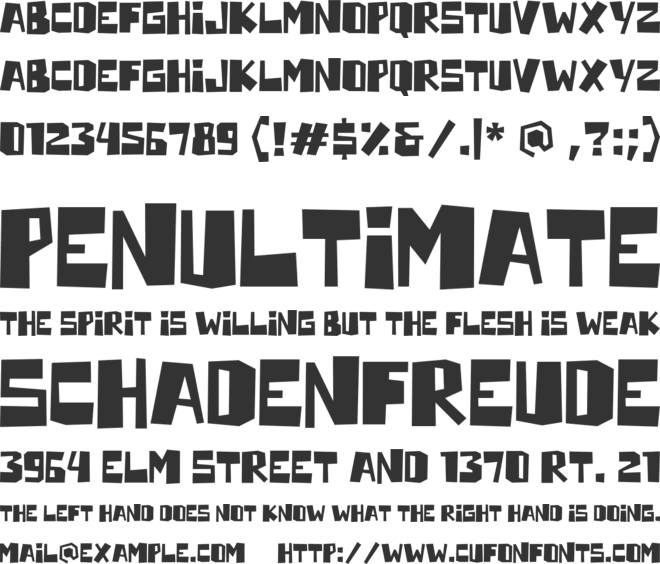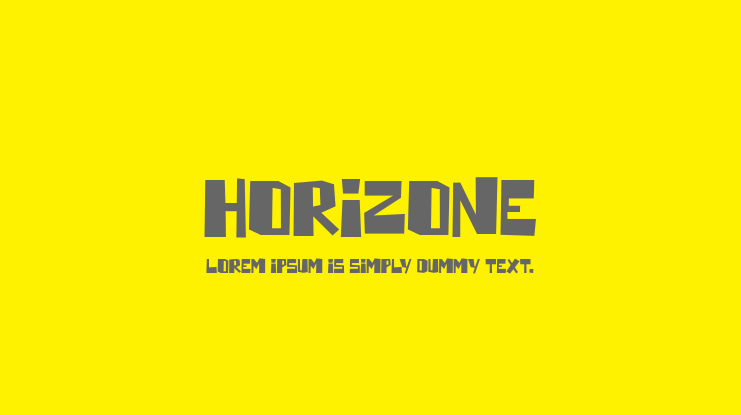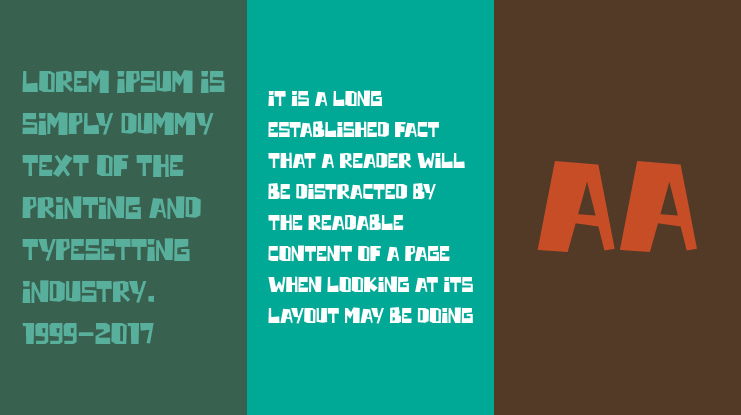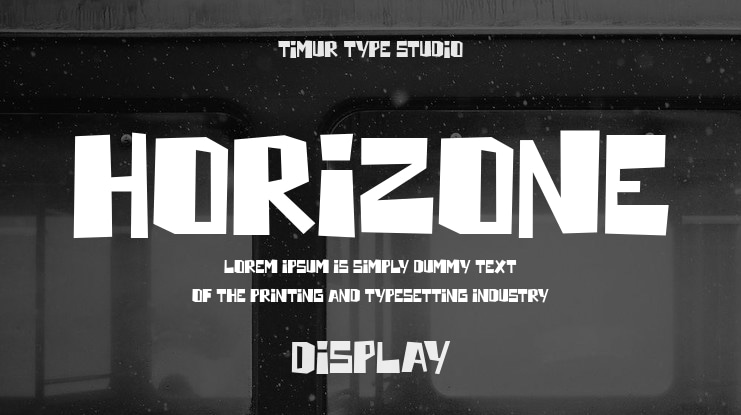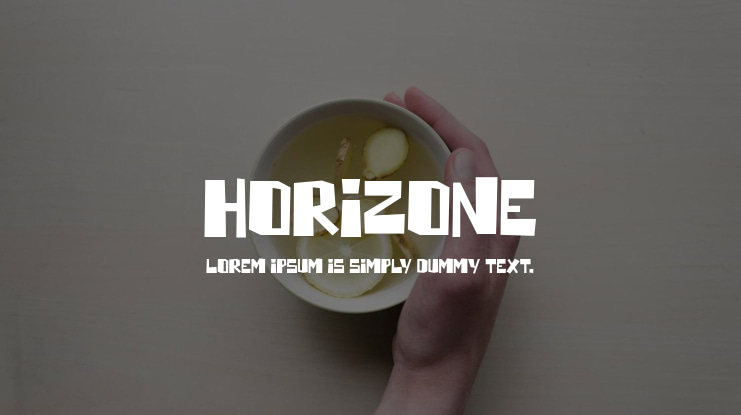
Horizone Font Family
Introducing Horizone, a beautiful Display Handwritten Font.
This font combines the elegance of handwritten style with versatility. Its unique shape and style will enhance your designs, making it perfect for creating eye-catching titles, logos, and more.
Moreover, Horizone Font supports multilingualism, allowing you to use it in different languages.